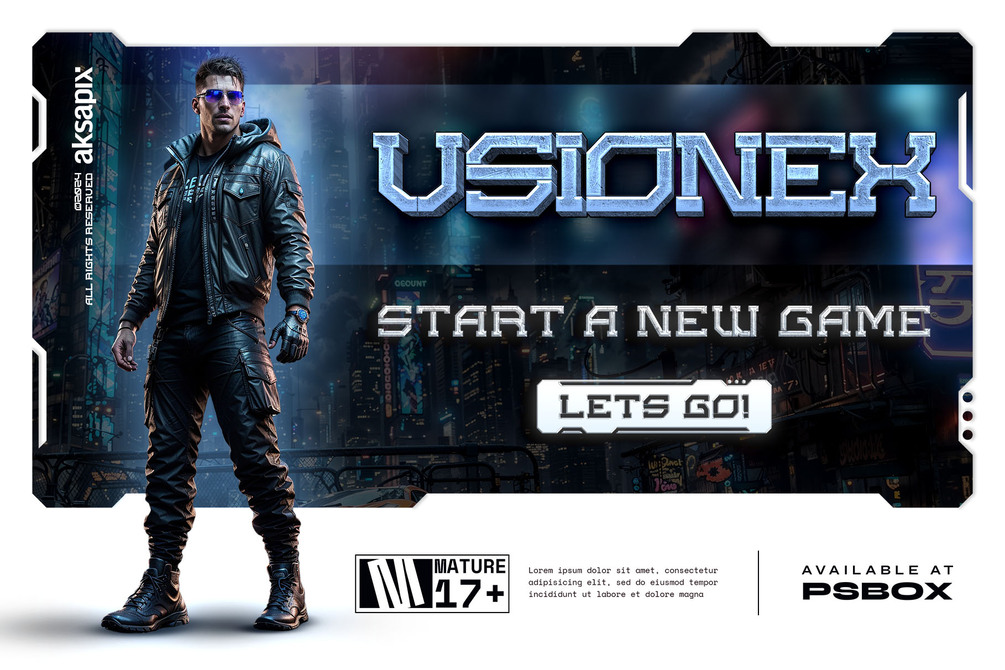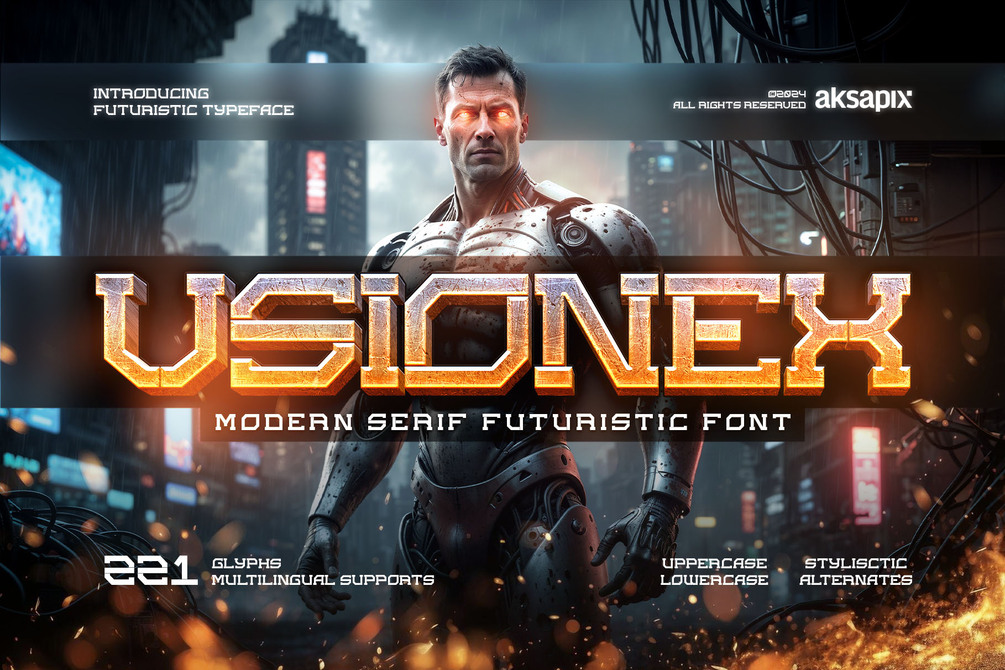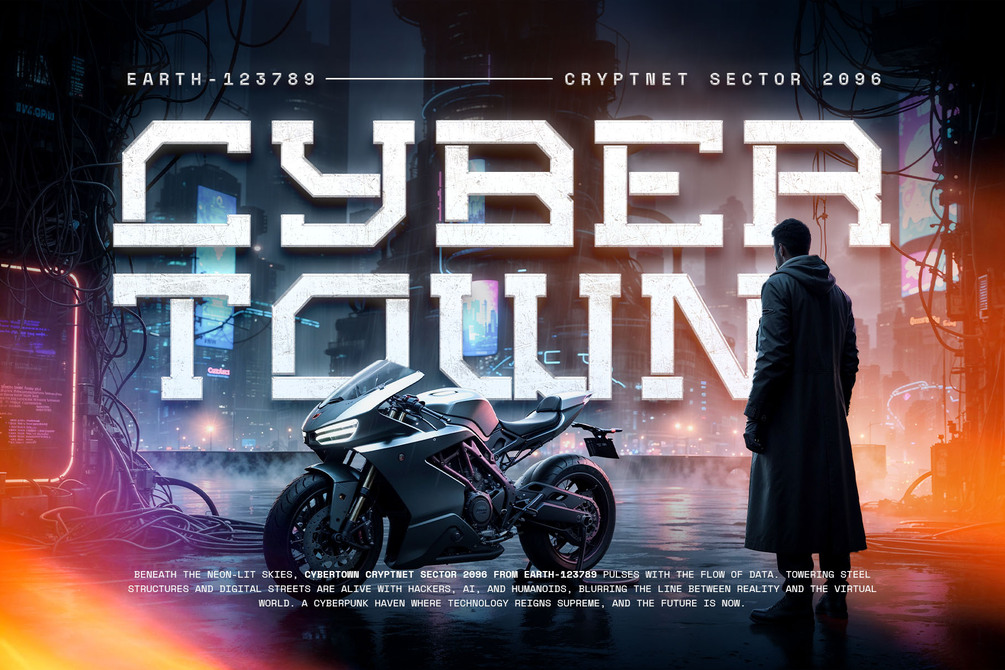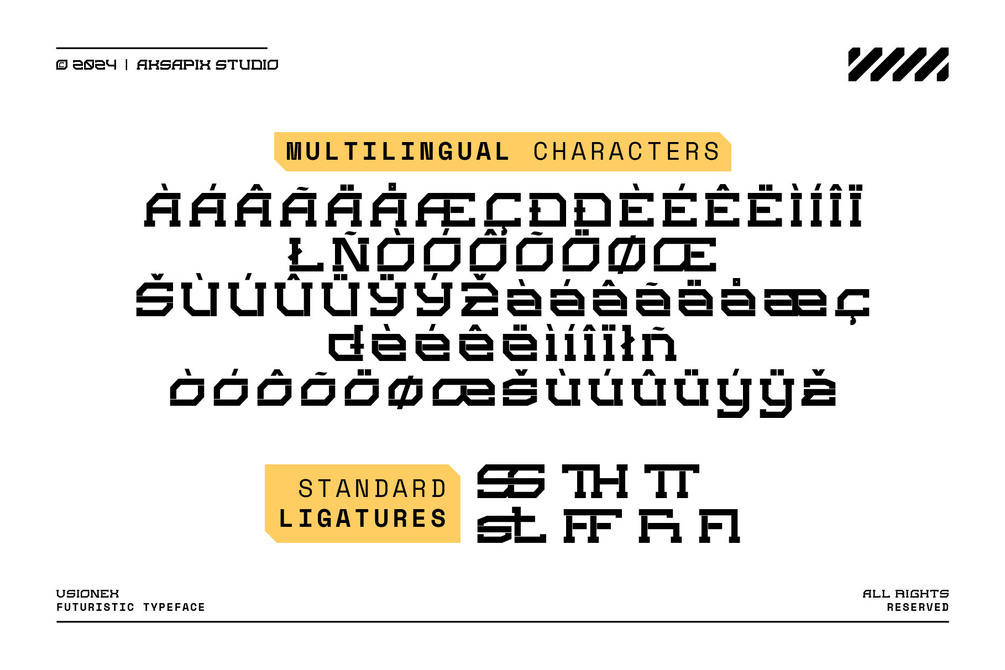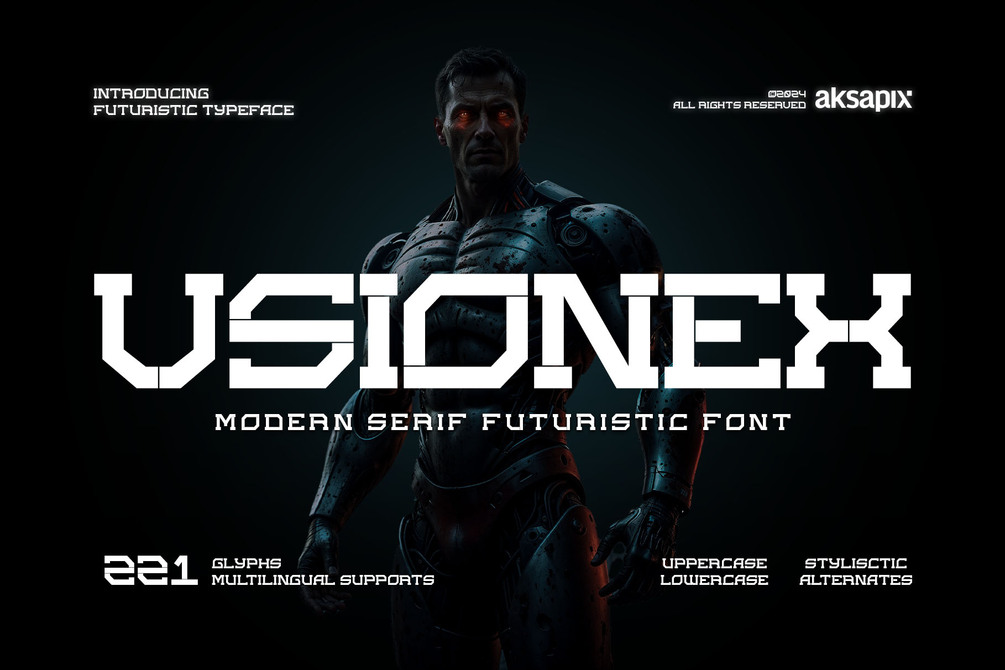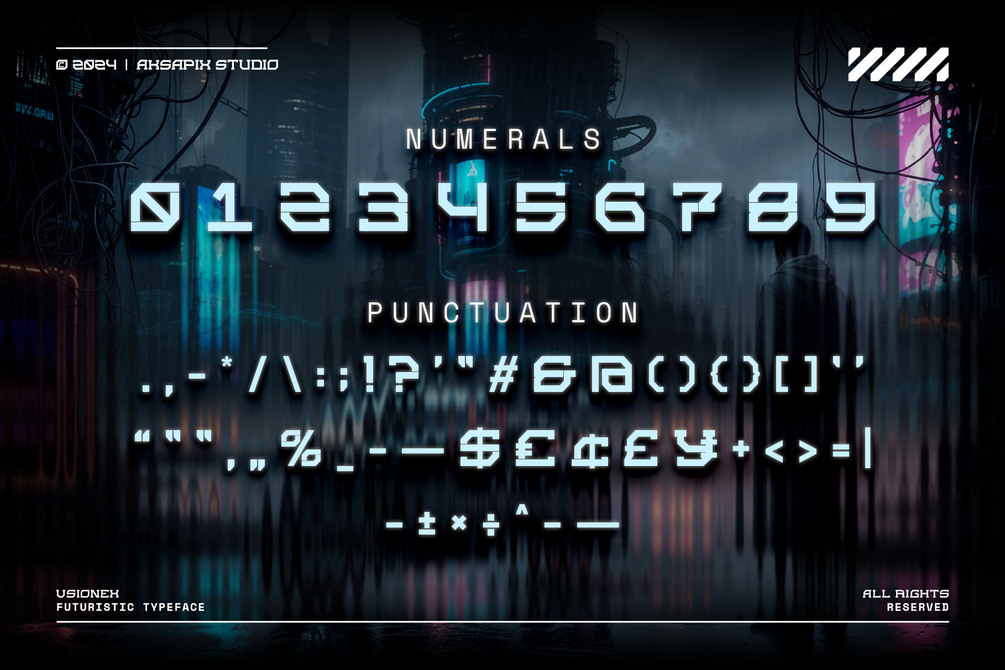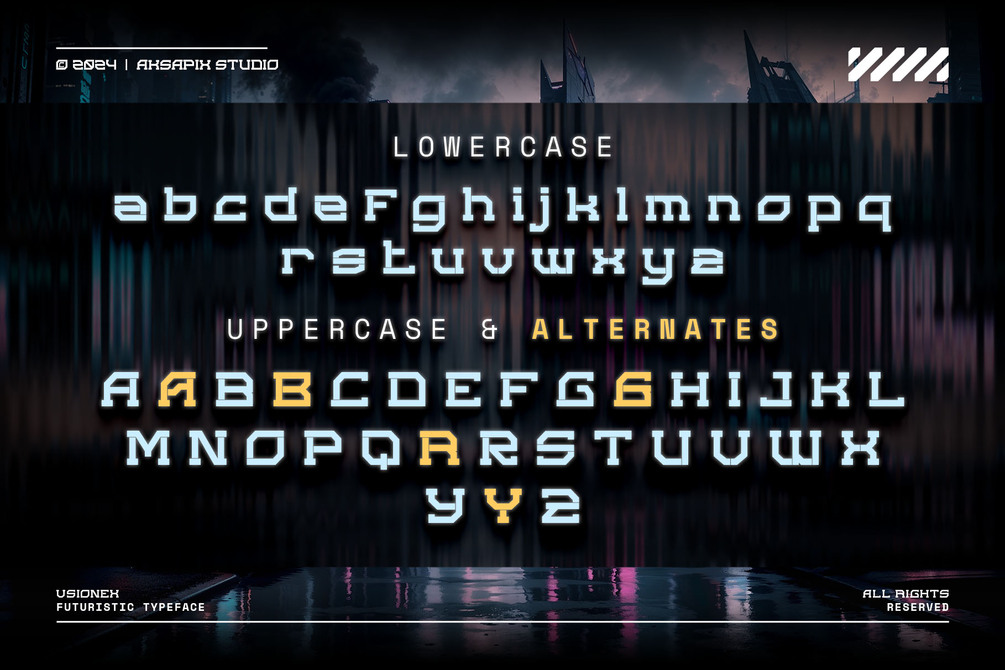
VSIONEX - Modern Serif Futuristic Font
Introducing VSIONEX - Modern Serif Futuristic Font, a sleek and cutting-edge typeface designed to merge modern elegance with a futuristic touch. This font comes with a full set of uppercase and lowercase letters, punctuation, stylistic alternates, ligatures, and multilingual support. With its clean, sharp lines and innovative design, VSIONEX is perfect for futuristic and forward-thinking projects that need a modern edge.
Features:
- Uppercase & Lowercase: Versatile character set for a wide range of design styles.
- Punctuation: Complete set to meet all your design needs.
- Stylistic Alternates: Add variety and customization to your typography.
- Ligatures: Unique letter combinations for a sleek and connected look.
- Multilingual Support: Ensures compatibility with different languages and regions.
Perfect For:
- Tech Branding
- Futuristic Logos
- Innovative Posters
- Website Headers
- Modern Editorial Designs
Elevate your design with the sharp, futuristic look of VSIONEX - Modern Serif Futuristic Font. Ideal for tech-driven logos, forward-thinking branding, and sleek editorial layouts, this font adds a refined modern aesthetic to any project.